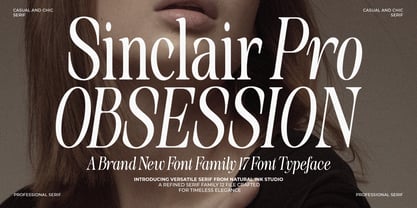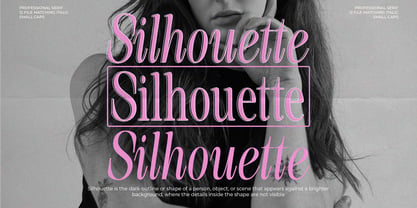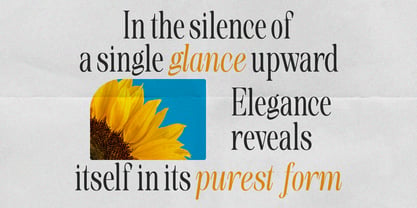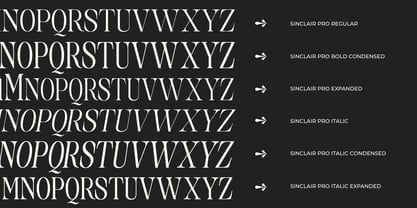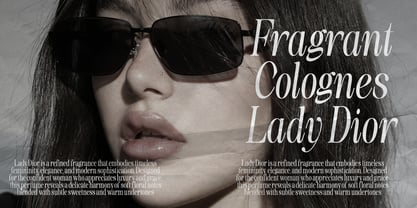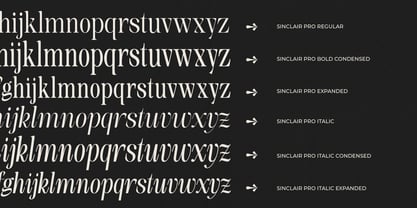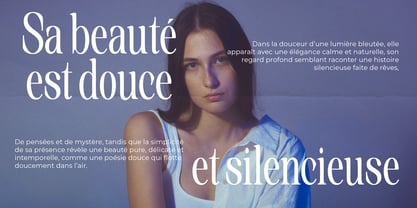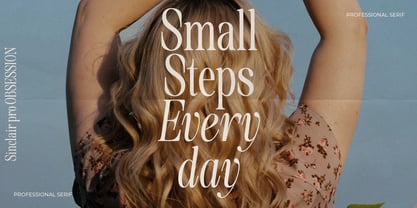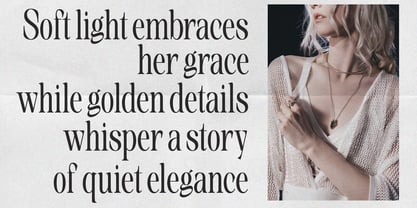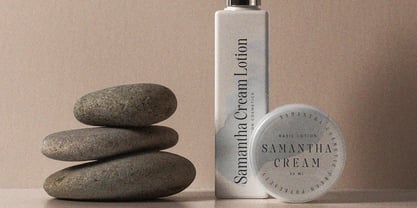
Sinclair Pro Obsession
The Sinclair Pro Obsession Font Family was designed by Arif Gunawan and published by Natural Ink. Sinclair Pro Obsession contains 17 styles and family package options. More about this family
Sinclair Pro Obsession is a refined and sophisticated serif typeface designed to bring a sense of timeless luxury and modern elegance to your creative work. Carefully crafted with exquisite attention to detail, this typeface blends classic serif beauty with contemporary versatility, making it an exceptional choice for designers who seek both style and sophistication. The Sinclair Pro Obsession family includes 12 meticulously designed styles, allowing you to create elegant typographic compositions with flexibility and harmony: Regular, Italic, Condensed, Condensed Italic, Expanded, Expanded Italic, Bold, Bold Italic, Condensed Bold, Condensed Bold Italic, Expanded Bold, and Expanded Bold Italic. Each letterform is thoughtfully balanced with graceful curves and refined proportions, delivering a luxurious visual presence that enhances every design it touches. Perfectly suited for high-end branding, luxury logos, editorial layouts, fashion magazines, wedding invitations, packaging design, and sophisticated typography projects, Sinclair Pro Obsession brings an air of distinction and refinement to your work. Features • 17 Font Files • OpenType Features: Kerning, Ligatures, Stylistic Sets • Character Set: Uppercase letters, numbers, punctuation, ligatures, and multilingual support Elevate your typography with the timeless elegance of Sinclair Pro Obsession, a typeface created to transform simple words into statements of style and sophistication. If you have any questions, feel free to contact us. Thank you. ✨